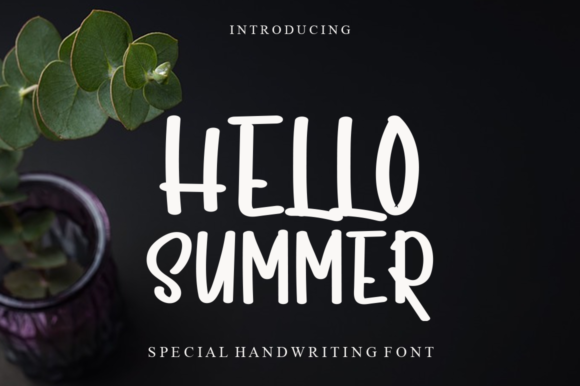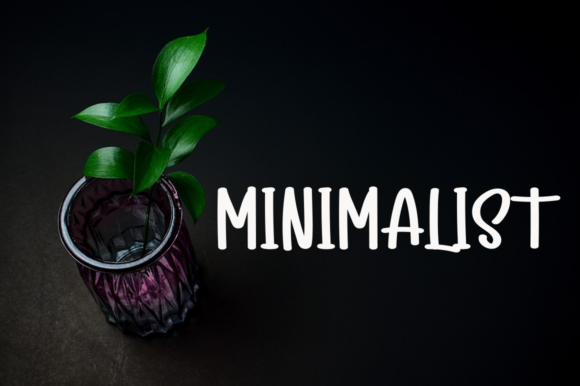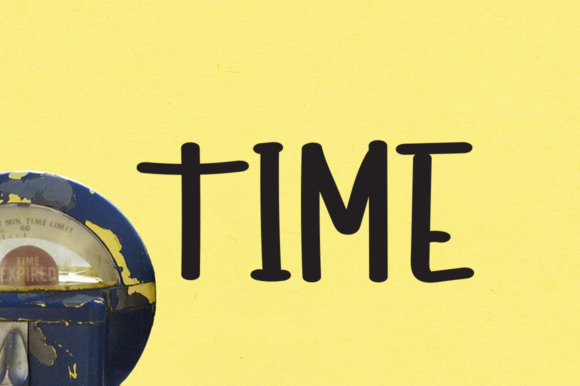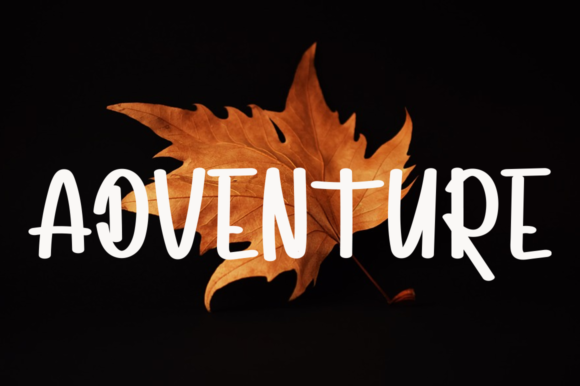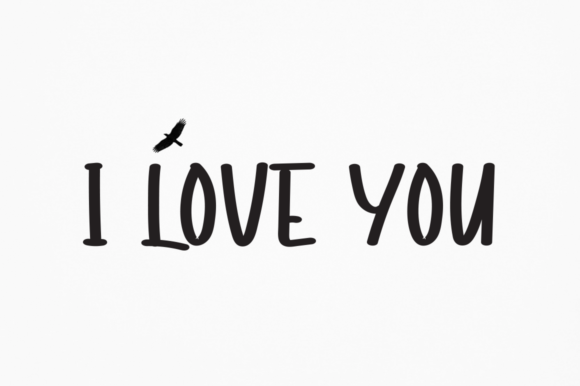
Hello Summer Font
About Hello Summer Font
Hello Summer is a friendly handwritten font. Beautifully clear and cursive, this font is here to make your creations seem out of this world! Fall in love with this font and use it in your most creative projects!